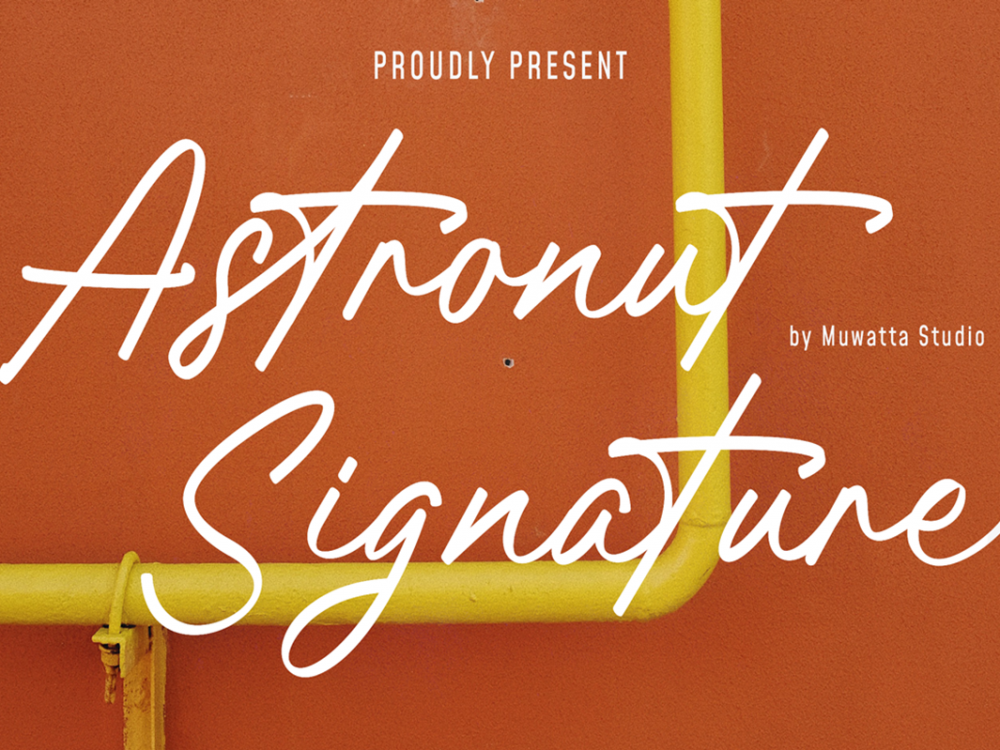
Astronut Signature Free Font
Astronut Signature Free Font is a beautiful handwritten font that simulates detailed brush writing and is very suitable for creating various design projects that require a scripted font. These can be posters, invitations, cards, branding, flyer prints, and more. If you wish to access more features and use them for commercial work please buy the full version.